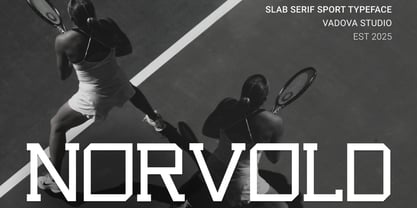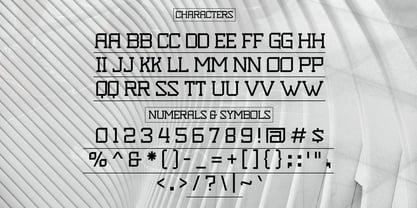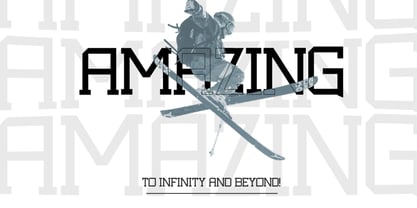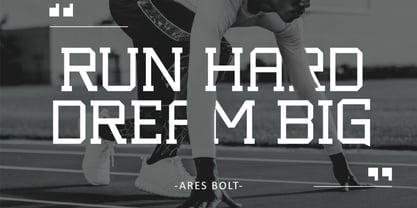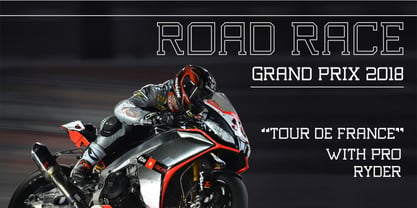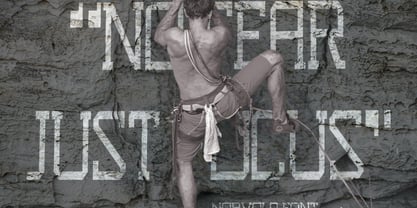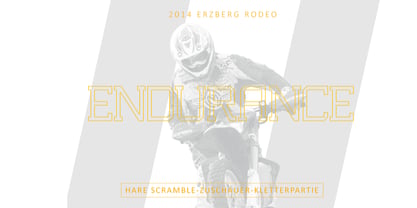
Norvold
by Vadova Std
Norvold is a slab serif sport typeface with bold, geometric letterforms and a strong, structured appearance, making it ideal for sports branding, varsity logos, athletic merchandise, posters, and competitive-themed designs that demand power and confidence. Norvold Suitable for is exceptionally versatile, ideal for creating commanding branding and impactful logos, especially for sports, fitness, and tech brands. It excels in headlines, making them pop in posters, advertisements, and digital banners. Perfect for gaming titles, and user interfaces, it also suits automotive branding, product packaging for performance goods, and promotional materials for high-energy events. This font ensures a strong, modern, and memorable visual presence across all platforms.
Foundry: Vadova Std